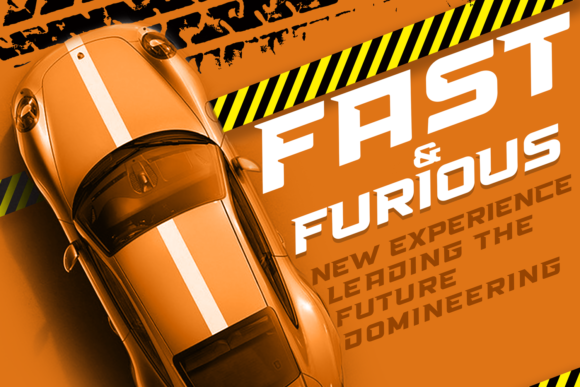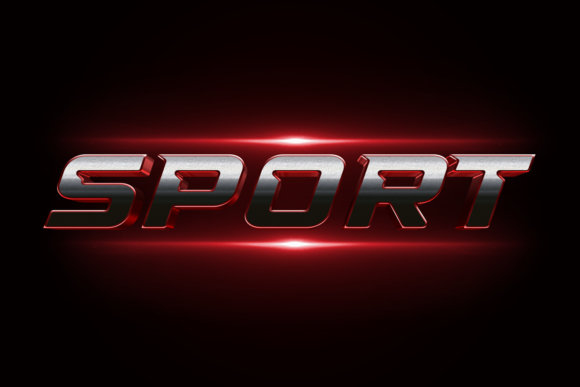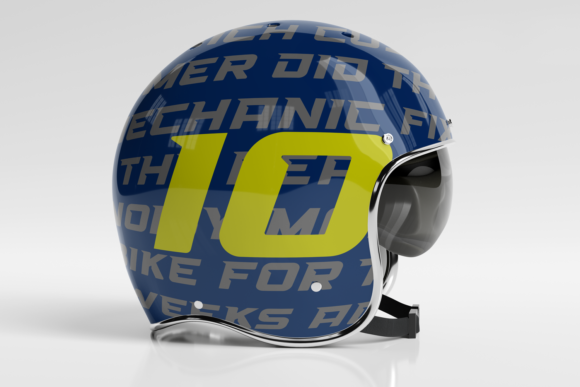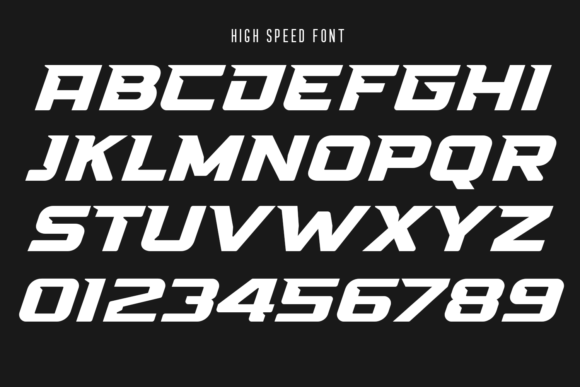
Introduction to High Speed Font
Imagine you’re standing at the starting line of a high-stakes racing competition, the crowd cheering as you prepare to speed off into the unknown. The rush of adrenaline is palpable, and the need for a bold, attention-grabbing design is just as real. That’s where the High Speed Font comes in – a sleek, modern display font designed to capture the essence of extreme sports and leave a lasting impression on your audience.
As a designer, you’re always on the lookout for that perfect design resource to elevate your creative project. Whether you’re crafting a poster for a high-octane event or designing the cover for a thrilling novel, the High Speed Font is the perfect tool to add some high-quality visual flair. With its transparent background and bold, italic style, this font is sure to make a statement and leave your viewers wanting more.
Key Features of High Speed Font
- High-resolution design for a crisp and clear display, ideal for creative projects.
- Features a transparent background, allowing for easy layering and composition in graphic design software.
- High-quality design with precise lines and smooth curves, perfect for use as a design resource.
- Designed with a modern aesthetic, making it an excellent choice for contemporary creative projects.
Honest Review: High Speed Font
As a designer, I’m always on the lookout for high-quality design resources that can elevate my creative projects. I recently stumbled upon the High Speed Font, and I’m excited to share my honest review with you.
- High-quality font design: The High Speed Font is incredibly well-designed, with smooth lines and a modern aesthetic.
- Transparent background: The font comes with a transparent background, making it easy to use in any design project.
- Limited character set: While the font is well-designed, the character set is relatively limited, which may not be ideal for longer text blocks.
- Not ideal for body text: Due to its modern aesthetic, the High Speed Font may not be the best choice for body text, but it’s perfect for headings and titles.
Overall, I’m impressed with the High Speed Font. It’s a great addition to any design resource library, and its free download makes it a no-brainer. While it has some limitations, I think it’s a fantastic choice for creative projects that require a high-quality, modern font.
How to Use High Speed Font
The High Speed Font is a versatile design resource ideal for various creative projects. This high-quality font offers a unique blend of style and functionality, making it a great addition to any design.
Tips for Getting the Most Out of High Speed Font
To get the most out of the High Speed Font, use it in combination with other design elements, such as images and graphics, to create visually appealing designs.
The High Speed Font is ideal for various use cases, including:
Logos and branding materials
Social media graphics and posts
Presentations and documents
Q: Can I use High Speed Font with a transparent background?
Yes, High Speed Font is designed to be used with a transparent background, making it perfect for creative projects that require a high level of design flexibility. Simply use the font in your design software and adjust the background to your desired color or image.
Q: What is the resolution of High Speed Font?
High Speed Font is available in high quality, with a resolution of up to 2048×2048 pixels. This ensures that the font looks crisp and clear, even when used in large sizes or at high zoom levels.